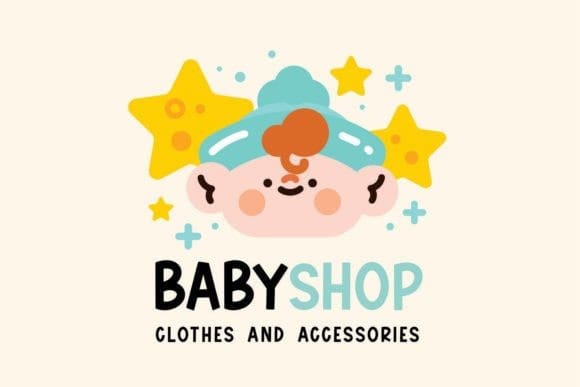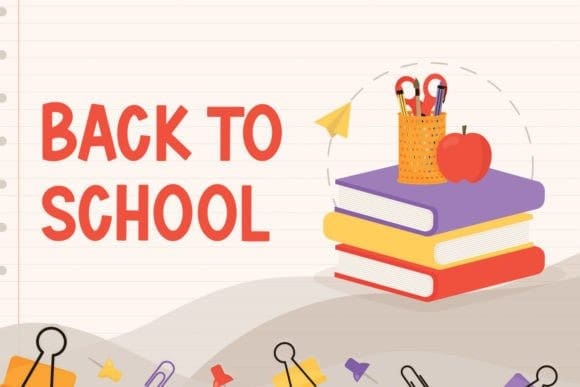
Friends Zone Font
Friends Zone Font is a cute, fun, and cheerful display font. Its chubby characters and lighthearted nature make this typeface a must-have in your fonts library! Use it to express your creative and playful design ideas.
Whether you’re using it for crafts, digital design, presentations, or making greeting cards, this font has the potential to become your favorite go-to font, no matter the occasion!